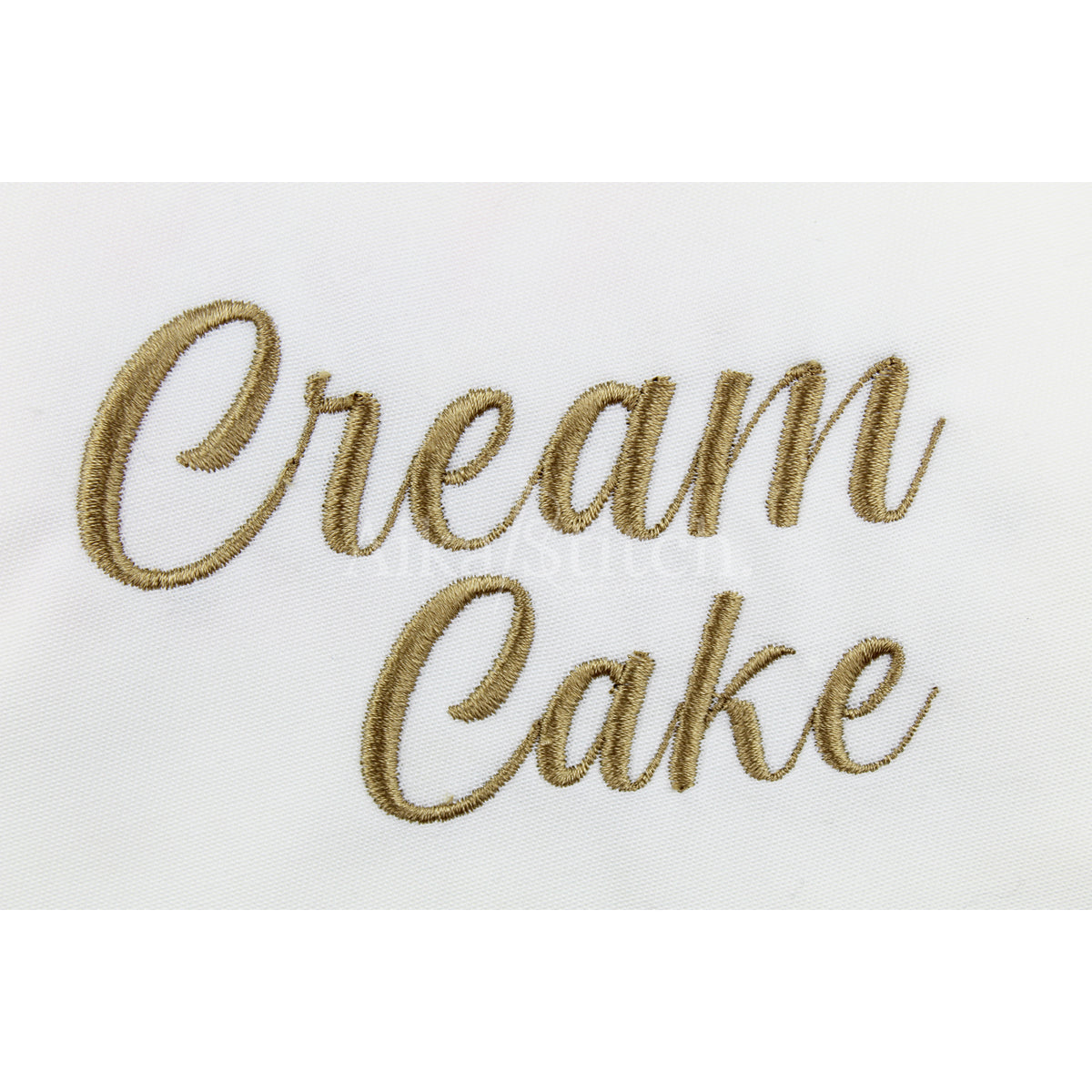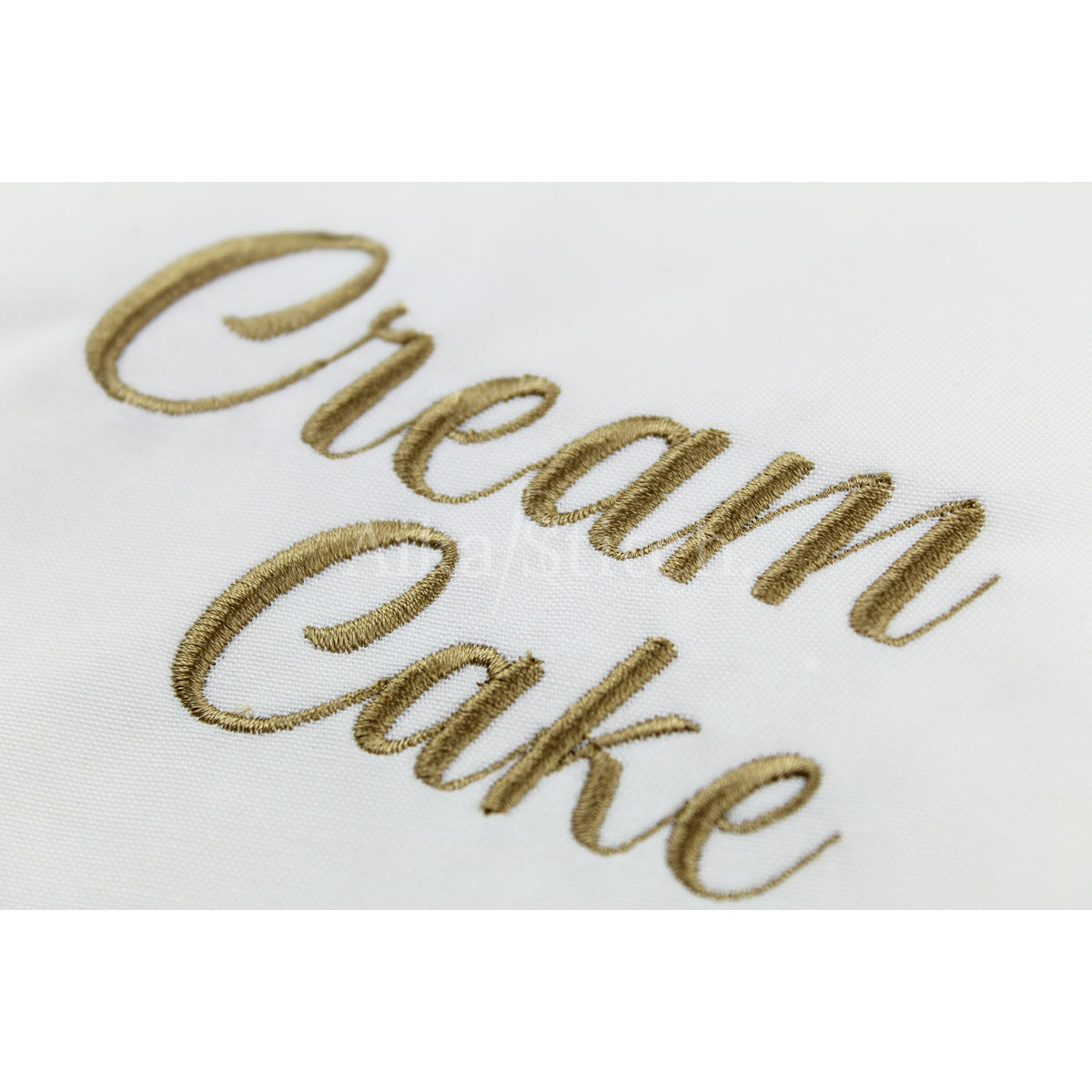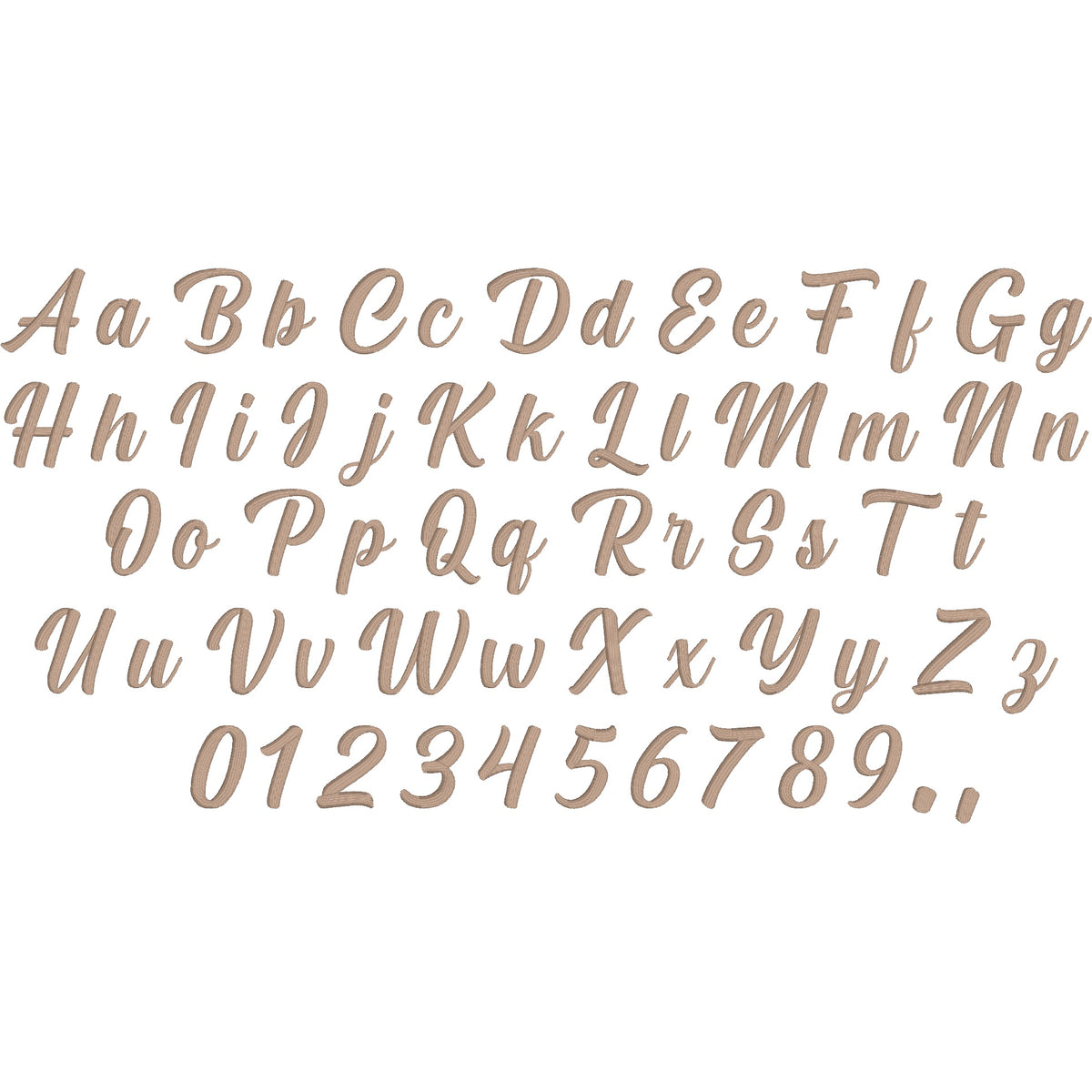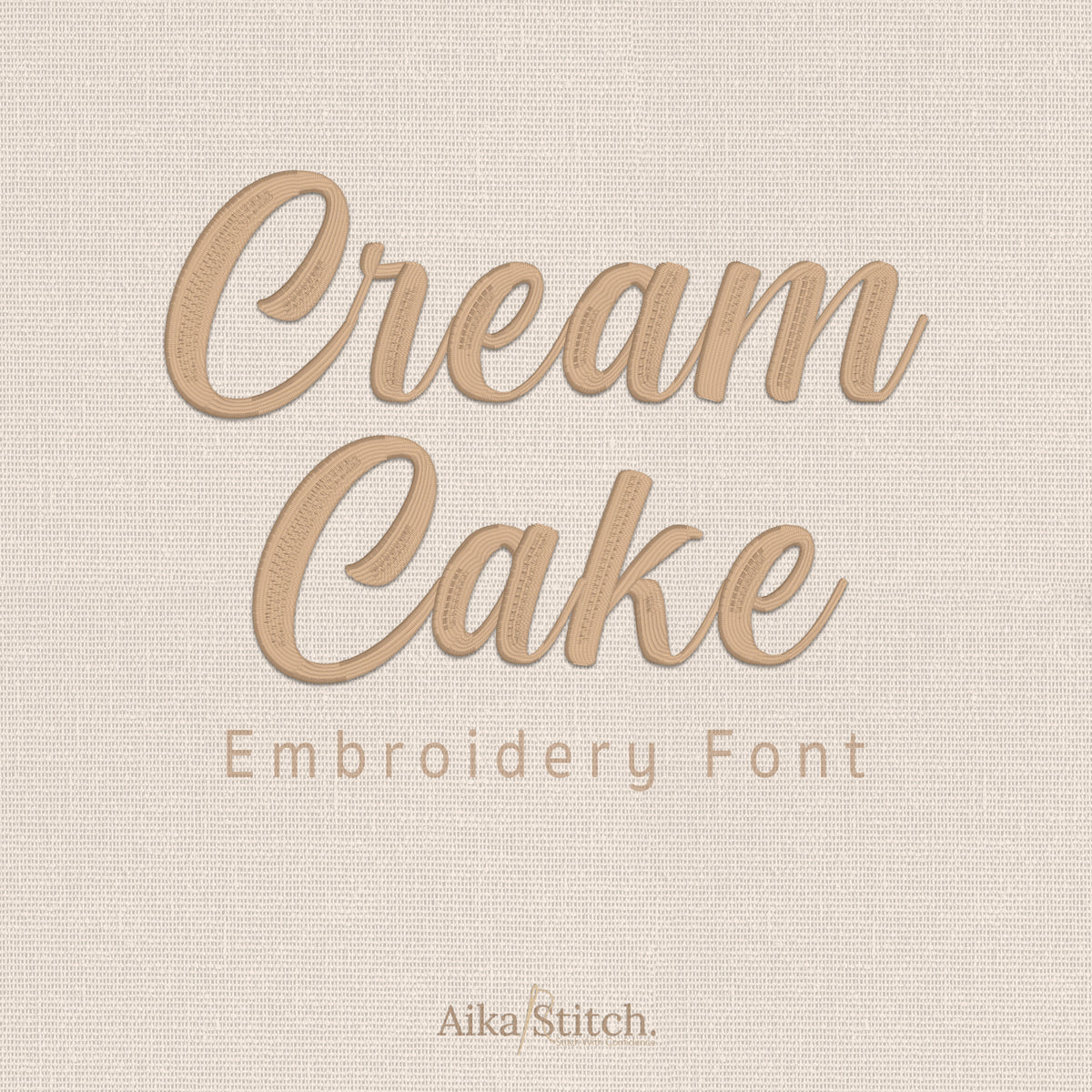
Cream Cake Elegant Script Embroidery Font
Cream Cake is a Elegant Script machine embroidery font featuring beautiful satin stitch lettering. Perfect for shirts, towels, hats, baby gifts, monograms, and small business embroidery projects.